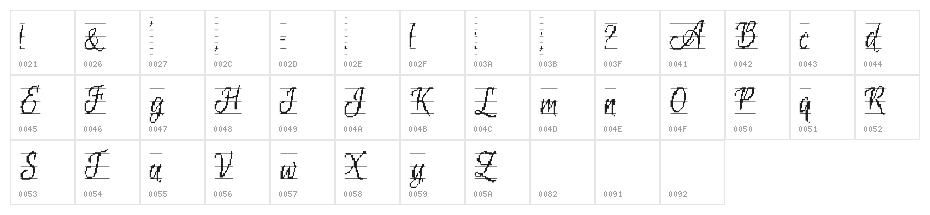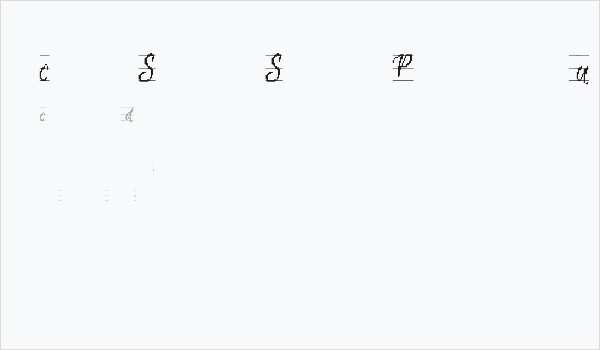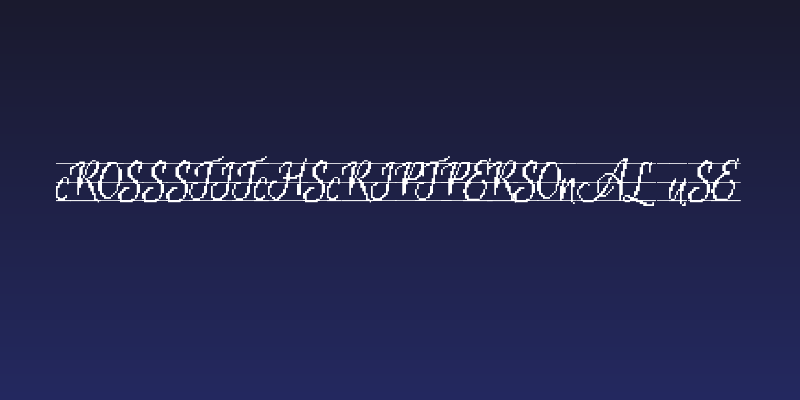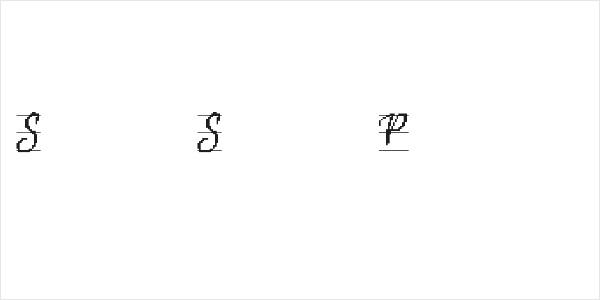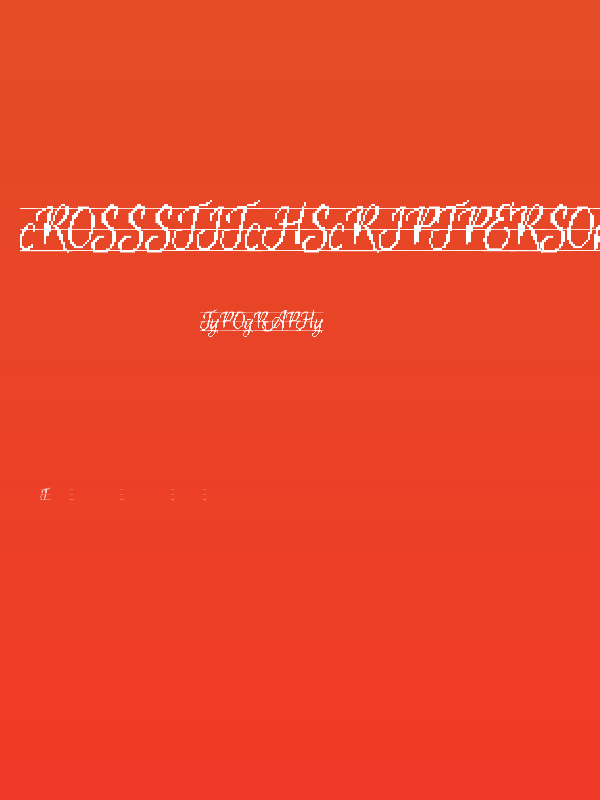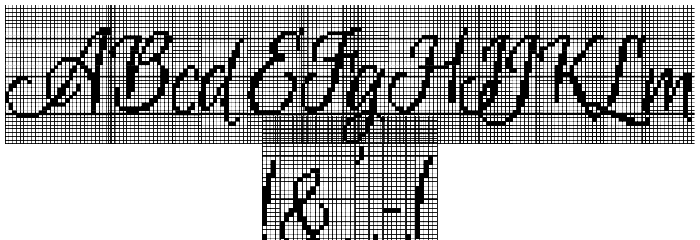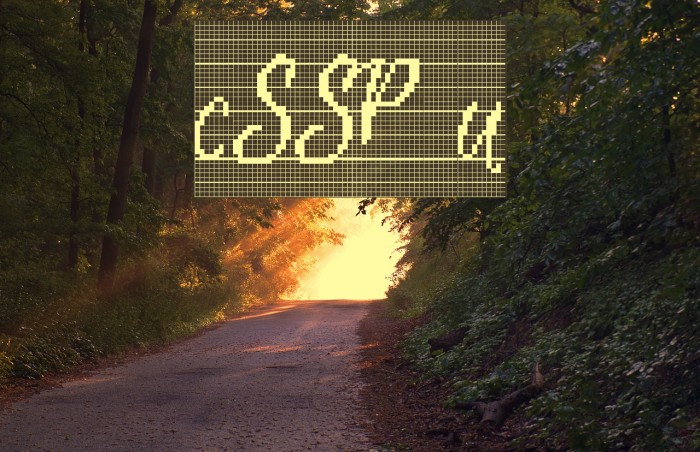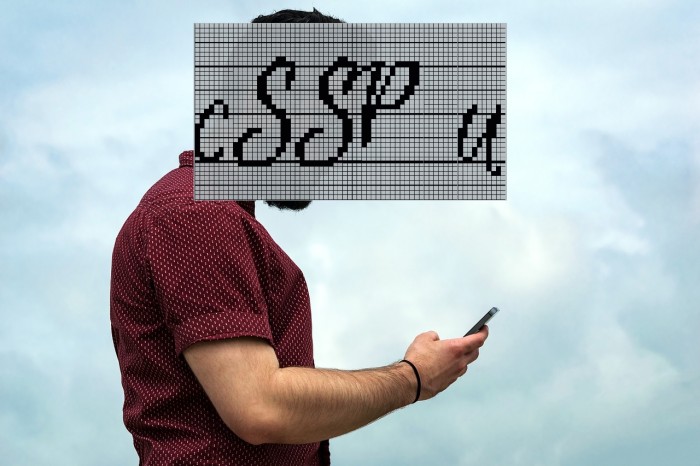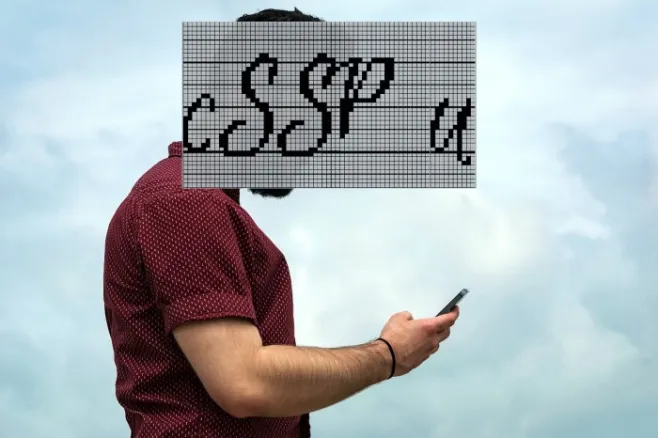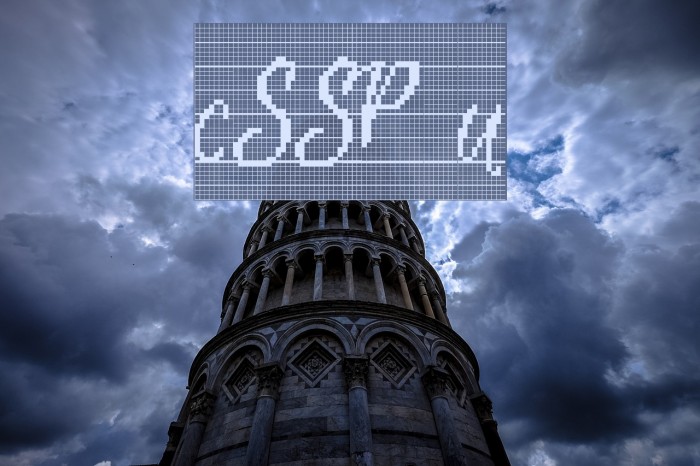
CrossStitchScriptPersonal Use Font
CrossStitchScriptPersonal Use Description
This font features a unique cross-stitch style that mimics the appearance of embroidered text. Each character is crafted with a series of intersecting lines, creating a textured and intricate look reminiscent of traditional needlework. The uppercase letters are elegantly designed with flowing curves and loops, while the lowercase letters maintain a consistent style, offering a harmonious blend of formality and creativity. Numbers and special characters are equally detailed, ensuring a cohesive appearance across all text. This font is perfect for projects that require a handcrafted, vintage aesthetic.
| Proposed Projects | Ideal for craft projects, DIY invitations, personalized gifts, and vintage-themed designs. |